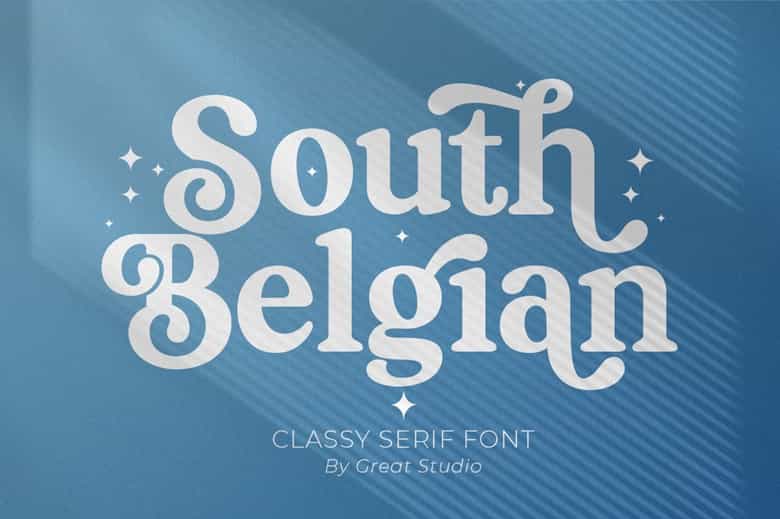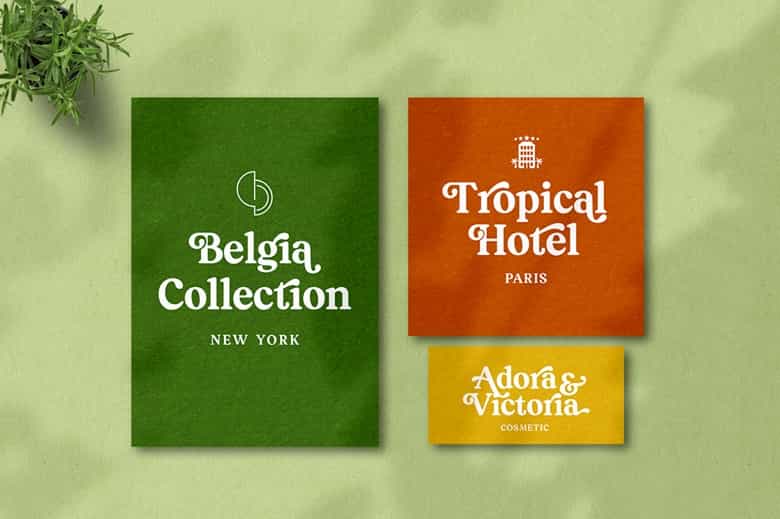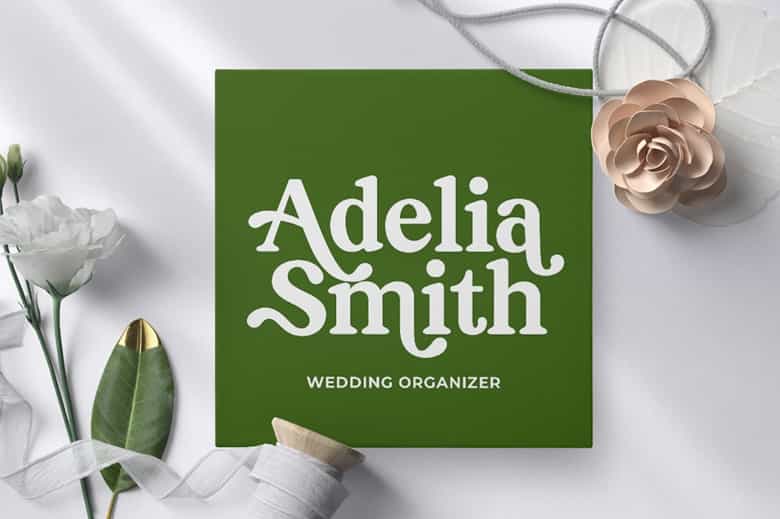
South Belgian is a vintage serif font, which has a very soft type, and come in a modern and classy packaging, and from which you can get your OpenType features to choose from an assortment of alternate characters, and among them letters, and ligatures which you prefer out of the many sets of uppercase and lowercase letters that are available to make the text or title look luxurious and rich.